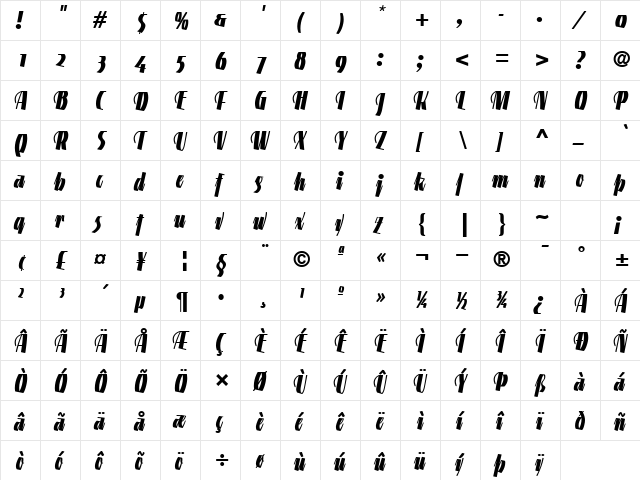
LTGneisenauette RegularAlt Bold Font Preview
LTGneisenauette RegularAlt Bold
Design Context for LTGneisenauette RegularAlt Typeface
LTGneisenauette RegularAlt is a composed and adaptable typeface that performs quietly and consistently across a wide range of design contexts. The heavy weight commands attention and anchors typographic hierarchies.